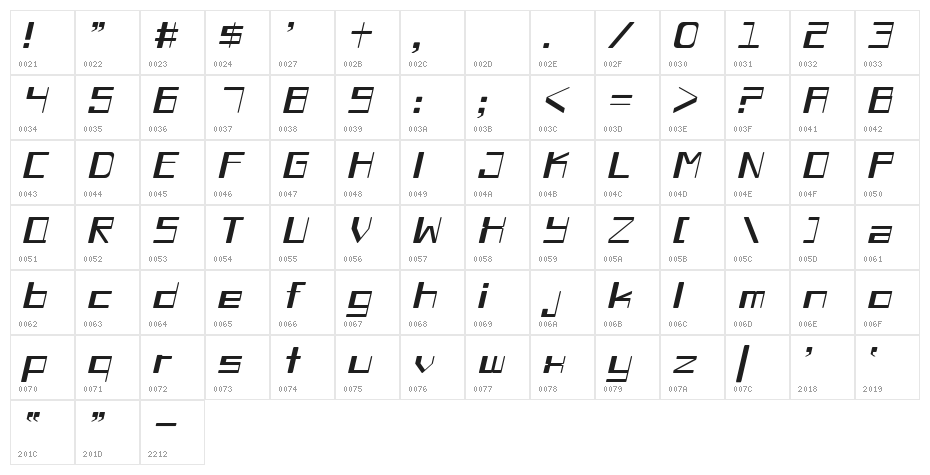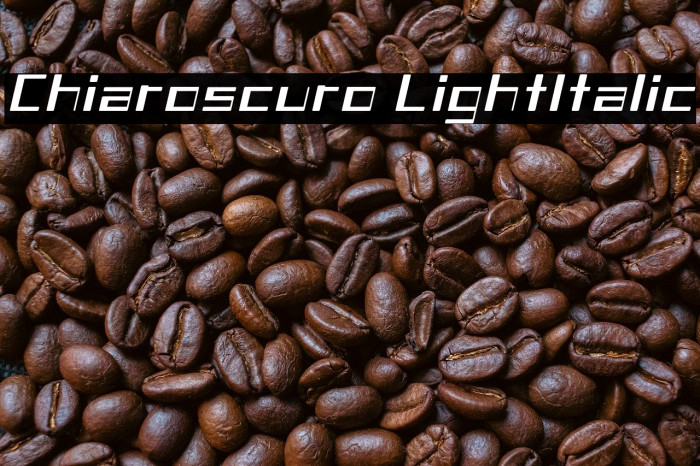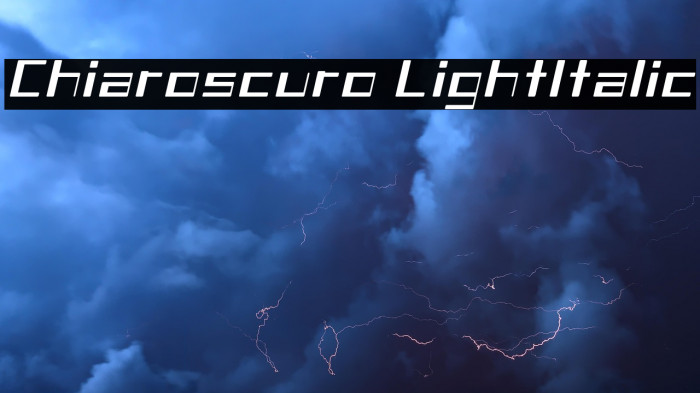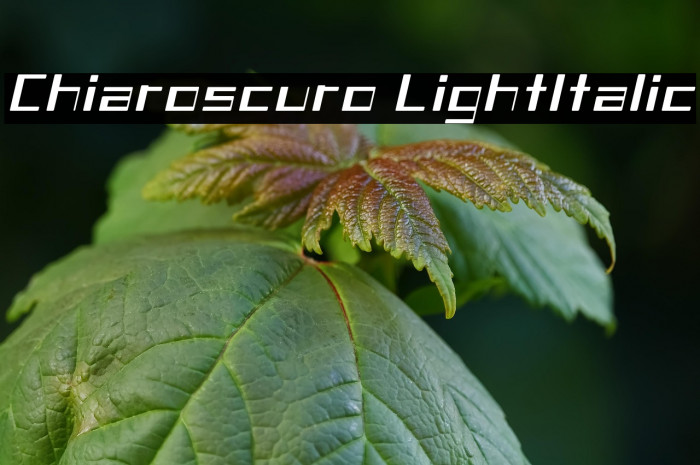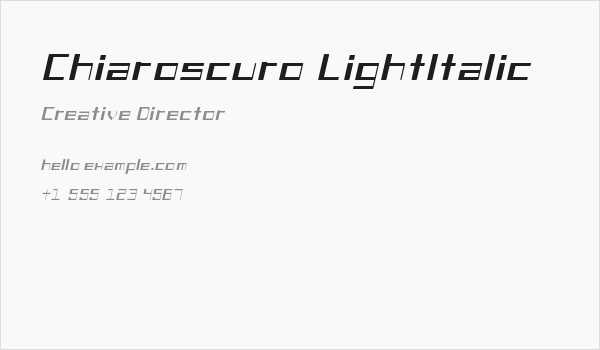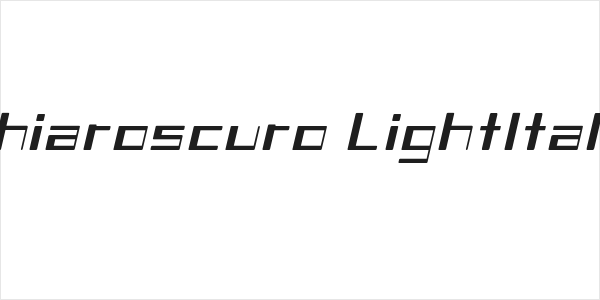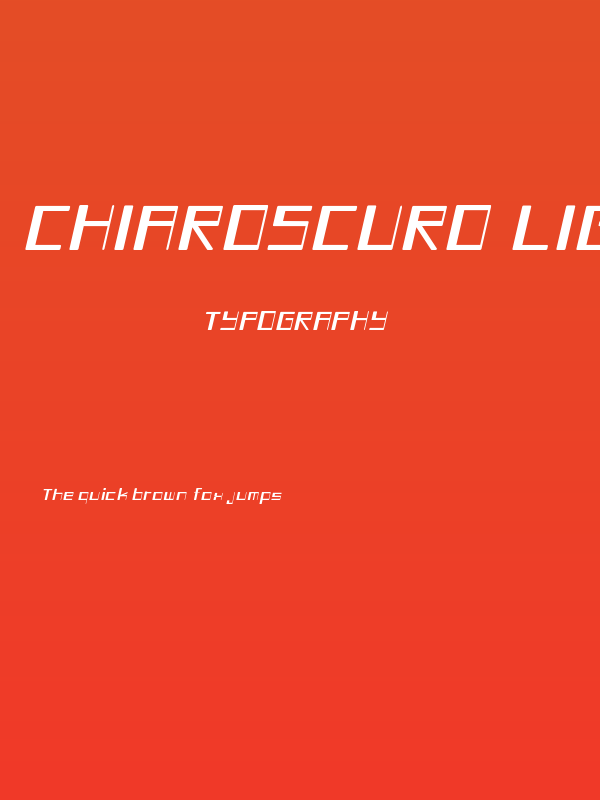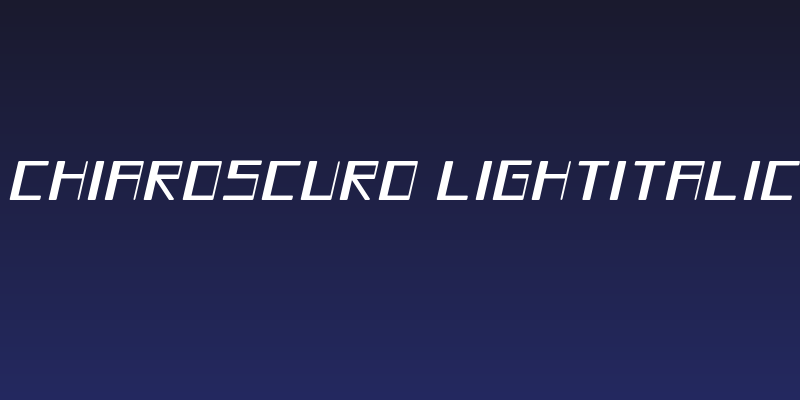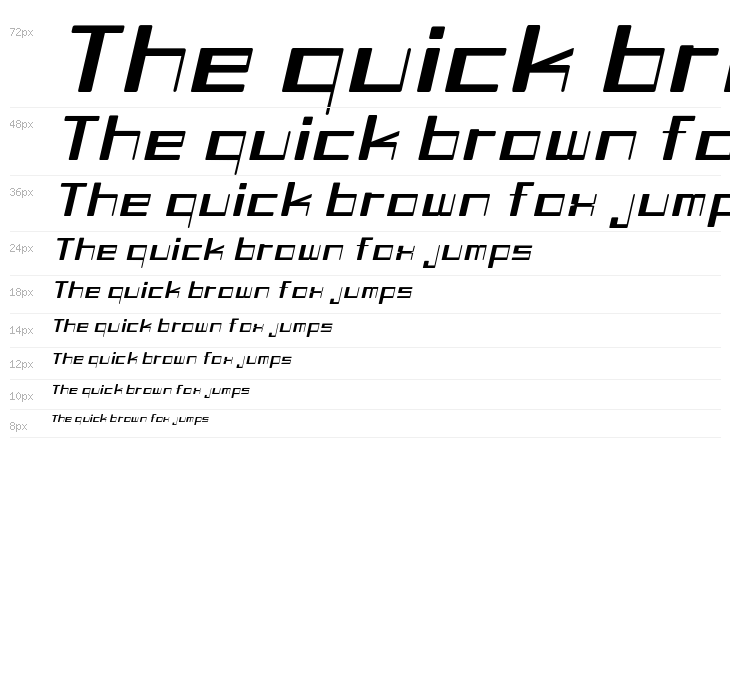
Chiaroscuro-LightItalic Font
Chiaroscuro-LightItalic Description
This font features a sleek and modern design with a distinct italic slant, giving it a dynamic and forward-moving appearance. The characters are crafted with sharp angles and clean lines, providing a futuristic and technical feel. The uppercase and lowercase letters maintain a consistent style, with a slight variation in stroke thickness that adds a subtle elegance. The numerals are bold and easily readable, while the special characters integrate seamlessly with the overall design. This font's unique style makes it suitable for projects that require a contemporary and innovative look.
| Use Case | Logos, Headlines, Branding |
| Proposed Projects | Ideal for technology branding, modern advertising, and innovative product packaging. |